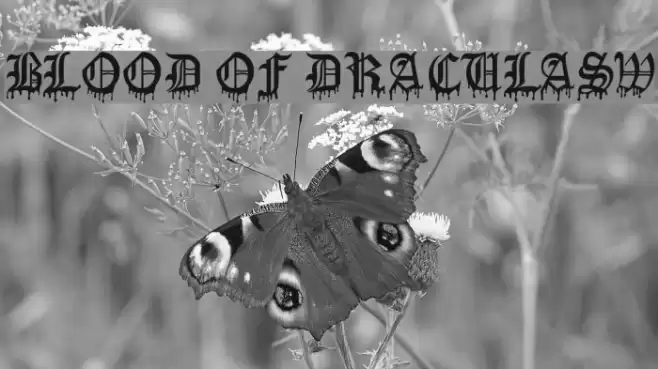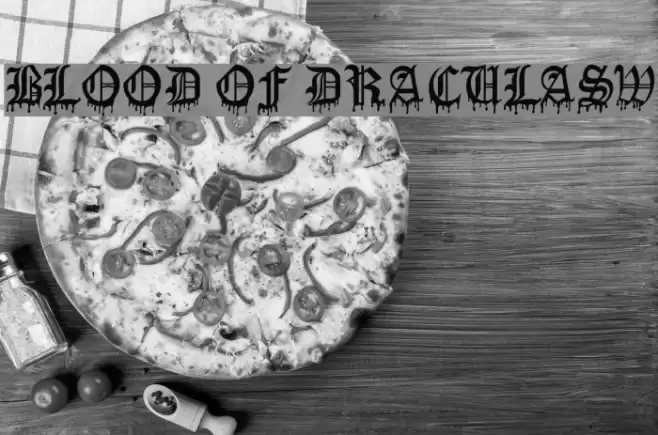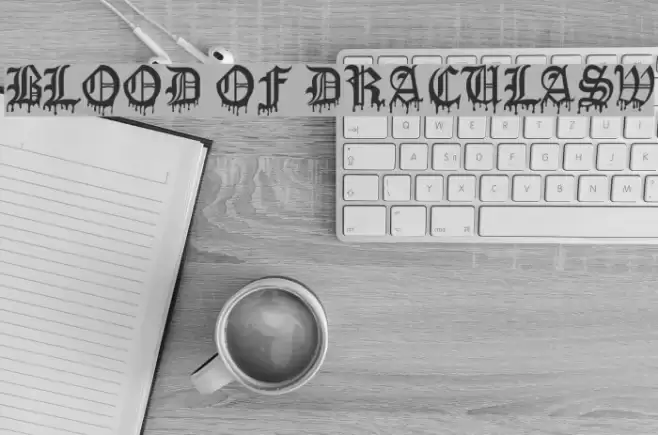
Blood Of DraculaSW Font
Blood Of DraculaSW Description
This font features a gothic, horror-inspired design with dripping elements that evoke a sense of blood or liquid. The characters are sharp and angular, reminiscent of classic blackletter styles, yet with a modern twist that adds a dramatic flair. The uppercase and lowercase letters maintain a consistent style, with each character adorned with unique drips that enhance the eerie aesthetic. This font is perfect for creating a spooky or mysterious atmosphere, ideal for Halloween-themed projects or horror movie posters. The bold and striking appearance ensures that it captures attention, making it suitable for headlines and titles.
A gothic, horror-themed font with dripping elements and a blackletter style from Drippy fonts.
- Proposed Projects: Ideal for Halloween invitations, horror movie posters, themed event flyers, and spooky branding.